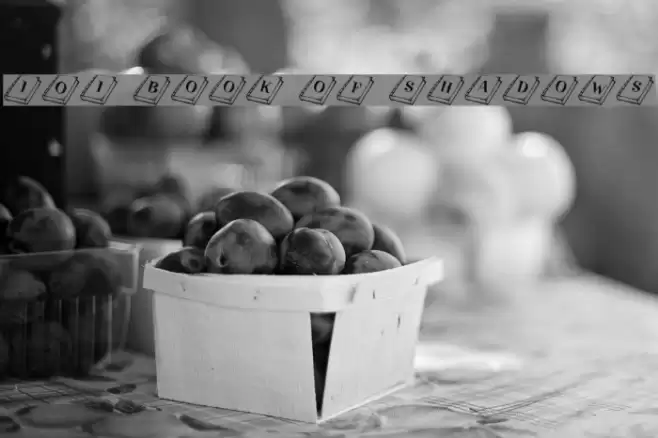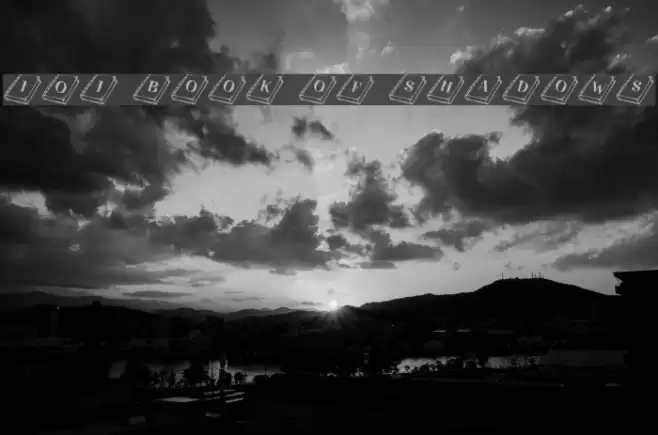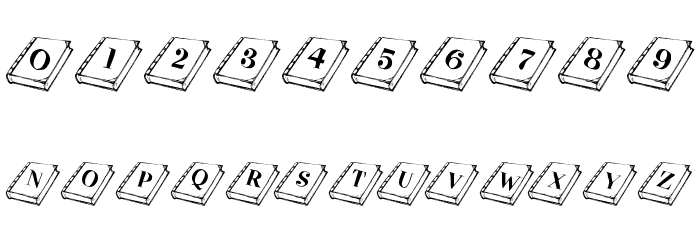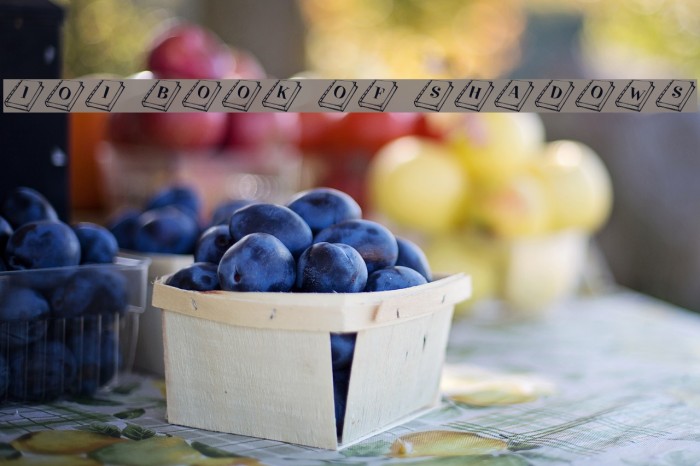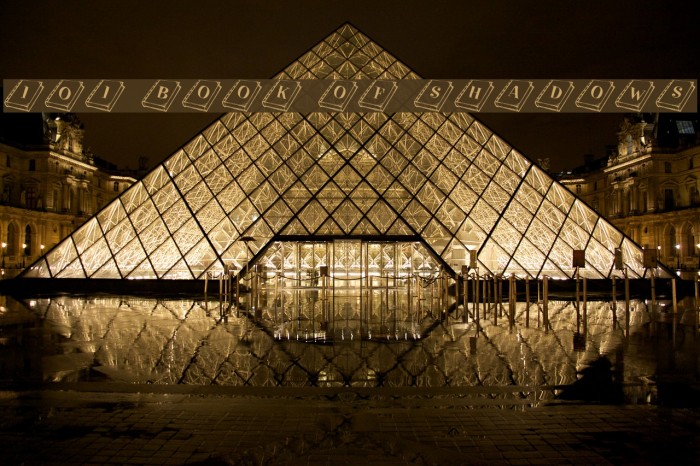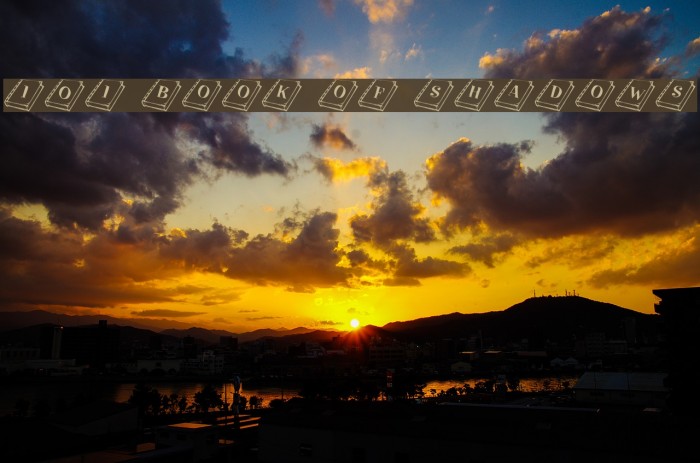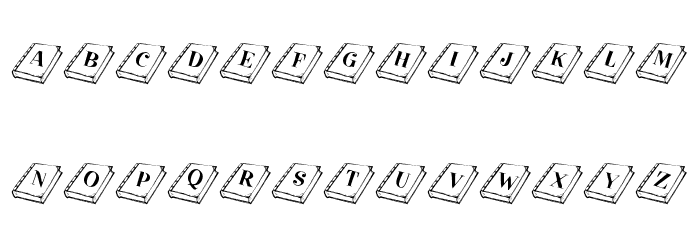
101! Book of Shadows Font
101! Book of Shadows Description
This font features a unique and decorative style where each character is presented on a three-dimensional book, giving it a whimsical and magical appearance. The letters are uppercase and appear to be bold, with a distinct shadow effect that enhances the three-dimensional look. The numbers follow the same style, maintaining consistency across the character set. This font is highly decorative, making it suitable for projects that require a touch of fantasy or a book-themed aesthetic. The characters are well-spaced, ensuring readability despite the intricate design.
A decorative font with characters on 3D books, ideal for fantasy themes from Uncategorized fonts.